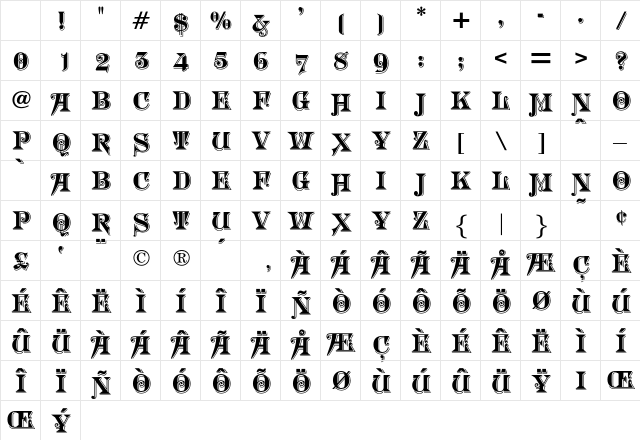
Complete OPTIMorgan TwentyNine glyph index. Displaying only characters natively supported by OPTIMorgan TwentyNine font.
OPTIMorgan is a composed and adaptable typeface that performs quietly and consistently across a wide range of design contexts.